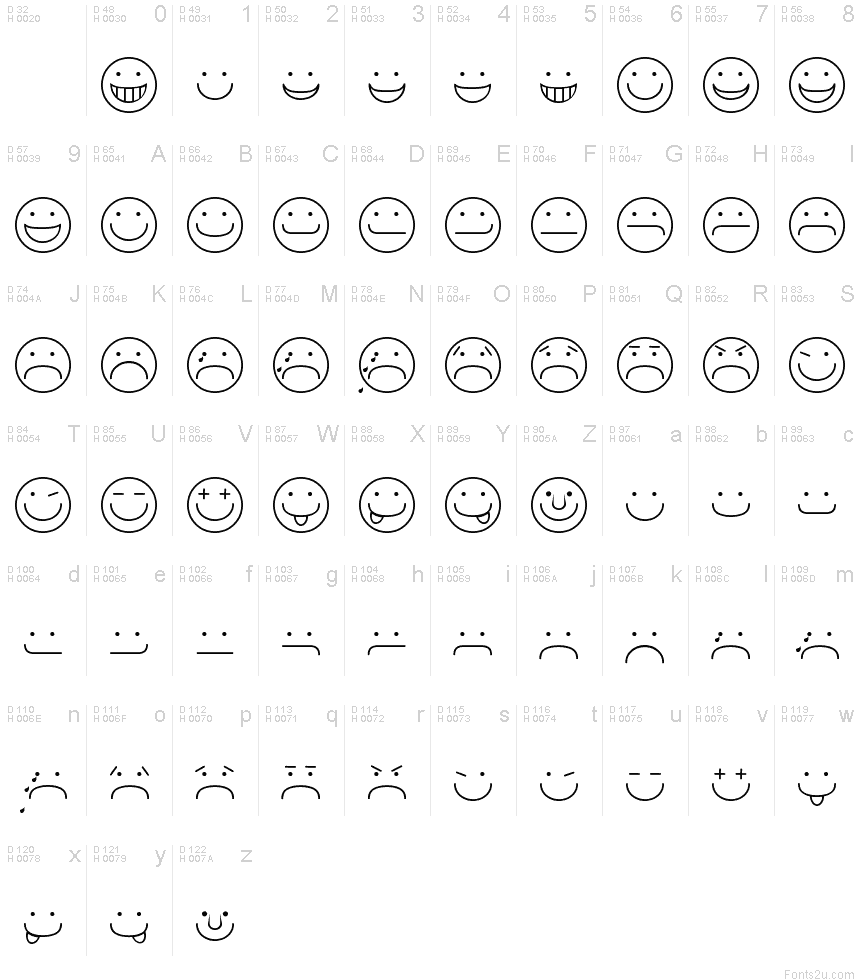
Fonts With Faces. So you don't need to download a &zerowidthspace;text fonts app&zerowidthspace;. The family name is the name of the font family that determines the typographic design across several faces, like helvetica.